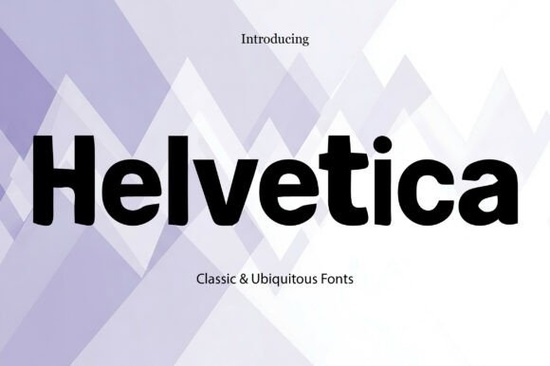
The Helvetica Font is one of those typefaces that almost everyone has seen but few stop to think about why it works so well. With its clean lines, balanced proportions, and excellent readability, it has been a go-to choice for designers, small businesses, and print-on-demand sellers for decades. If you need a typeface that looks professional without feeling cold or stiff, this is a strong pick for your next project.
What Makes Helvetica Different from Other Sans-Serif Fonts?
Helvetica belongs to the neo-grotesque family of sans-serif typefaces. That means it was designed with neutrality in mind no decorative flourishes, no exaggerated character shapes. Every letter feels balanced and intentional. The stroke widths stay consistent, and the curves flow smoothly from one character to the next.
This neutrality is actually its biggest strength. Unlike a display font that screams for attention, Helvetica sits quietly in the background and lets your content do the talking. It works equally well in a magazine layout, on a product label, or inside a mobile app interface.
Who Should Use This Font?
Helvetica is versatile enough for a wide range of creative work. Here are some common uses:
- Branding and logos gives a polished, trustworthy look without being overbearing
- Editorial design works beautifully for both headlines and long-form body text
- Packaging and labeling especially for organic, lifestyle, or minimalist products
- Web and UI design clean enough for interfaces, readable at small sizes
- Print-on-demand pairs well with illustrations, patterns, and photography
- Signage and wayfinding its legibility at various sizes makes it a practical choice
How Does the Bold Weight Perform?
The bold version of Helvetica shown in the sample brings more visual weight to your layouts. It emphasizes strength and impact while keeping the same smooth curves and consistent strokes that define the regular weight. This makes it a solid choice for headlines, callouts, or any text that needs to stand out without looking harsh.
When you pair the bold weight with lighter text, you create a natural visual hierarchy that guides the reader's eye. This is especially useful in editorial layouts, social media graphics, and product packaging where you need clear information at a glance.
What Design Styles Does It Pair Well With?
Because Helvetica is so neutral, it plays well with many other typefaces. Here are a few combinations worth trying:
- Pair it with a script or handwritten font for a warm, personal touch the contrast keeps things interesting without clashing
- Use it alongside a geometric display font for a modern, structured feel
- Combine it with a serif typeface to create a classic editorial look
Is Helvetica Good for Long-Form Text?
Yes and this is where many decorative fonts fall short. Helvetica was designed with readability as a top priority. Its letter spacing, x-height, and open counter shapes all contribute to comfortable reading, even in longer paragraphs. Whether you are laying out a brochure, designing a blog header, or formatting a product catalog, you can trust this typeface to stay legible across different sizes and mediums.
This kind of reliability matters when you are working on client projects or building a brand identity that needs to scale across print and digital.
Where Can You Find Similar Sans-Serif Options?
If you love the clean aesthetic of Helvetica but want to explore other options in the same family, Creative Fabrica has a good selection of sans-serif typefaces worth checking out. The Rounded Sans Bundle font collection offers softer alternatives that work well for playful or approachable branding. Meanwhile, the Pretzel font and Agootack font each bring their own personality while staying within the sans-serif territory.